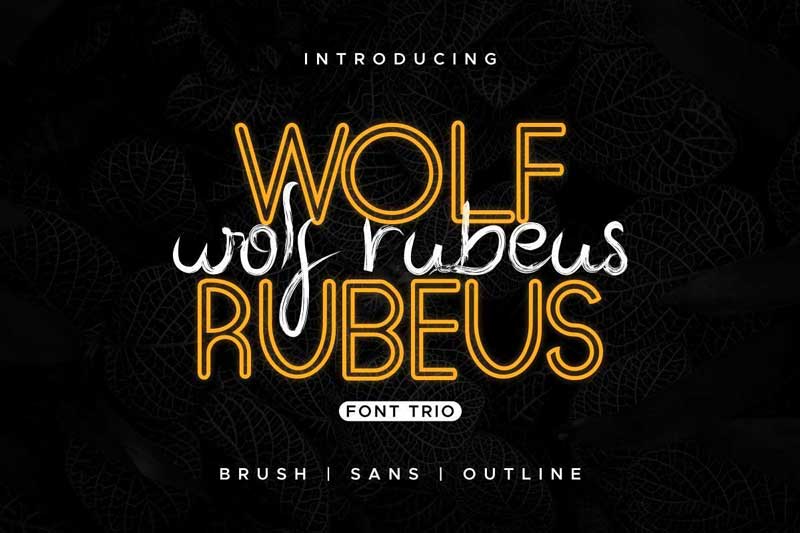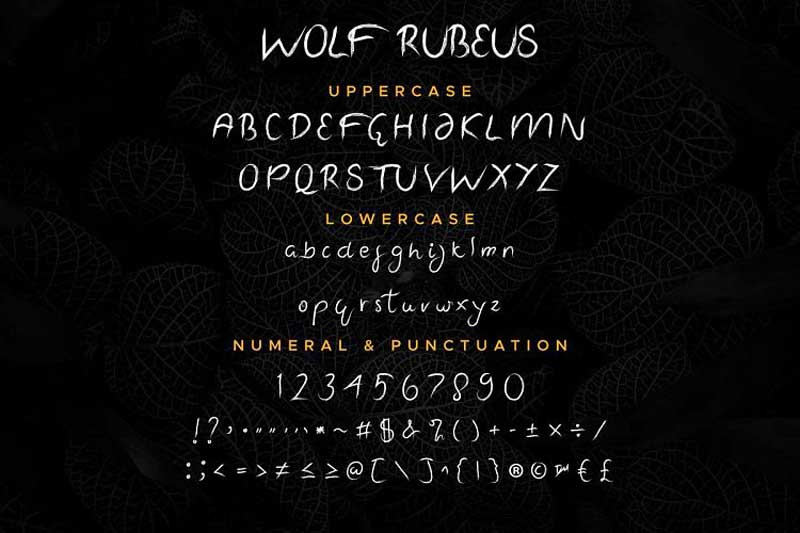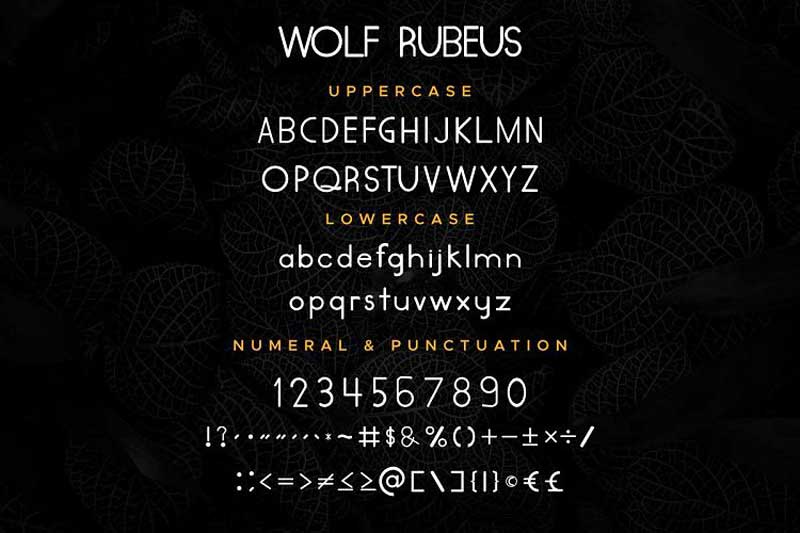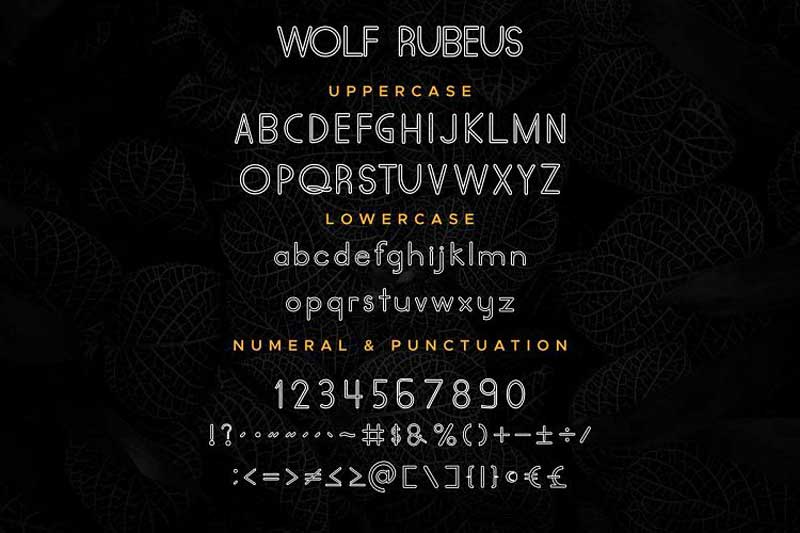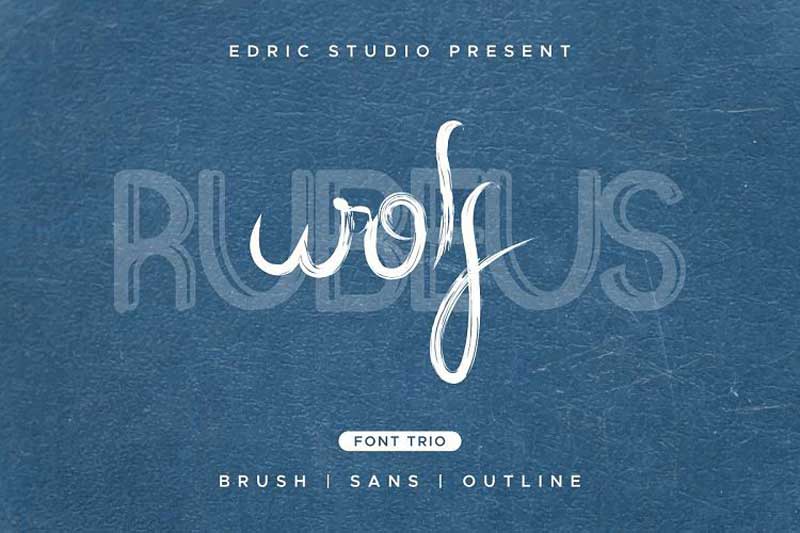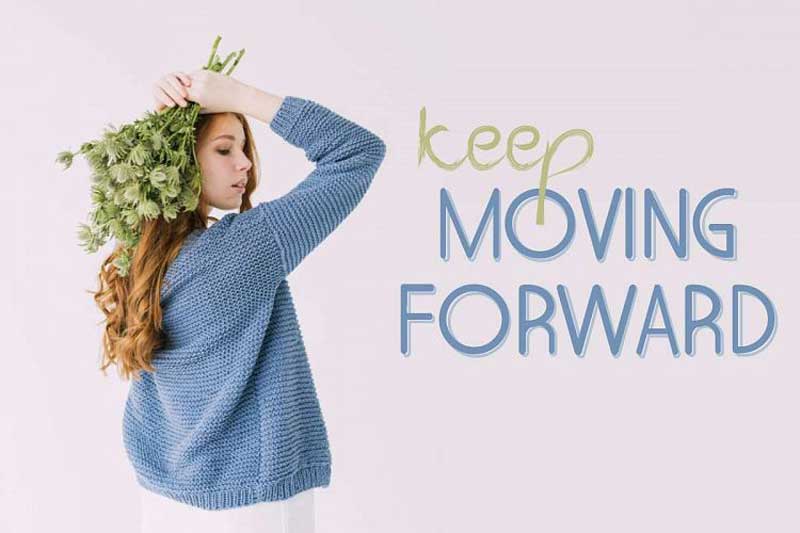
Wolf Rubeus Font Family
Introducing The Fontbundle – Wolf Rubeus Font Family. Wolf Rubeus font has an exclusive beautiful three signature styles : Sans Display, Outline and Rough Script. The characters of this font is unique, mysterious, horror, grunge, elegant, brush and decorative look. With these styles you can explore many industries and designs categories :